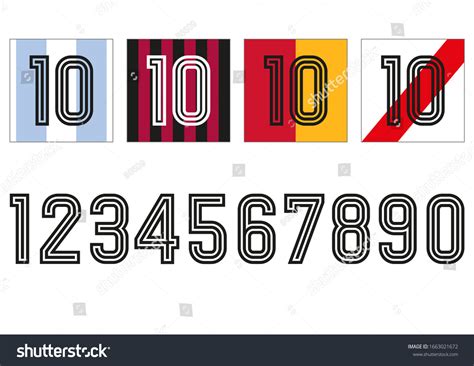
Awesome Football Number Fonts
Hey guys! Let’s dive into the awesome world of football numbers font ! If you’re a fan, a player, or just someone who loves the sport, you know how crucial those numbers are. They’re not just digits; they’re identifiers, symbols of pride, and a huge part of the game’s visual identity. Whether you’re designing a jersey, creating some fan art, or even just customizing your gear, picking the right font for your football numbers can make all the difference. It’s all about that bold, athletic look that screams ‘game day’! We’re talking about fonts that have that perfect blend of toughness and style, fonts that look great big and bold on the back of a jersey or smaller on a team logo. This isn’t just about readability; it’s about conveying the spirit and energy of football itself. Think about your favorite players – you instantly associate their number with them, right? That’s the power of a good font choice. It becomes part of their legacy! So, whether you’re a designer looking for inspiration or a football enthusiast wanting to add some flair to your projects, stick around. We’re going to explore some of the best football numbers font options out there that will have your designs scoring touchdowns. Get ready to find the perfect font to capture the thrill and excitement of the gridiron!
Why Font Choice Matters for Football Numbers
Alright, let’s get real for a second, guys. Why should you even care about the football numbers font you pick? Isn’t a number just a number? Absolutely not! In the world of football, the font you choose for those iconic numbers is super important. Think about it: these numbers are plastered all over jerseys, helmets, banners, and merchandise. They need to be instantly recognizable, even from a distance, and they need to convey a sense of power, speed, and athleticism. A poorly chosen font can make a jersey look weak, hard to read, or just plain boring. We’re talking about a font that needs to stand up to the intensity of the game, something that looks strong and impactful. It’s not just about aesthetics; it’s about branding and identity. Your team’s numbers are a key part of its visual identity. They’re how fans recognize their heroes on the field. Imagine your favorite player’s number in a flimsy, scripty font – it just doesn’t fit the vibe, does it? Football numbers font needs to be bold, often blocky, and convey that rugged, no-nonsense attitude that football is known for. A good font can elevate a simple jersey design into something truly memorable and professional. It adds a layer of seriousness and passion to your team’s presentation. Plus, in a sport where every second counts, legibility is key. Referees, coaches, fans, and even fellow players need to be able to identify numbers quickly and accurately. This is where fonts designed with sports in mind really shine. They often feature clear, distinct shapes for each numeral, minimizing confusion. So, when you’re choosing a football numbers font , you’re not just picking letters; you’re choosing a symbol that represents strength, unity, and the competitive spirit of the game. It’s a small detail that has a huge impact on the overall look and feel of anything related to football. Let’s make sure your numbers are always ready for the big game!
Classic and Timeless Football Fonts
When we talk about football numbers font , there are some styles that just never go out of fashion. These are the classics, the ones you see again and again because they just work. Think of those bold, blocky fonts that have been gracing football jerseys for decades. They’re the bedrock of sports typography, offering that perfect blend of strength and clarity. These fonts are designed to be seen, to stand out, and to project an image of power and determination. One of the most iconic styles is the classic athletic block font. These typically feature thick, straight lines with minimal embellishments. They are incredibly legible, making them ideal for numbers that need to be read quickly on a fast-paced field. Often, these fonts will have a slightly squared-off or rounded feel, giving them a friendly yet robust appearance. Another variation is the ‘varsity’ style font, which might have subtle serifs or a slightly more stylized appearance, often evoking a sense of tradition and collegiate pride. These fonts often have a bit more character, perhaps with slightly slanted strokes or unique shapes for certain numbers, but they maintain that core readability. Many of these classic football numbers font options are also designed with customization in mind, allowing for outlines, shadows, and other effects that further enhance their visual impact. They are versatile and can be adapted to a wide range of team colors and designs. When you see these fonts, you immediately think of football. They evoke memories of legendary games, championship wins, and the sheer grit of the sport. They are timeless because they embody the fundamental qualities of football: strength, tradition, and unwavering spirit. Whether you’re outfitting a professional team or a local youth league, these classic fonts provide a reliable and impactful choice that resonates with the essence of the game. They are the sturdy foundation upon which countless football visual identities have been built, and they continue to be a go-to for designers seeking that authentic, powerful look. They are the unsung heroes of jersey design, providing that essential visual punch that defines a team. So, if you’re aiming for that instantly recognizable, powerful football aesthetic, you can’t go wrong with these enduring football numbers font choices.
Modern and Aggressive Football Fonts
Now, let’s switch gears and talk about the football numbers font that brings the heat – the modern and aggressive styles! These fonts are all about making a statement, conveying speed, power, and a cutting-edge vibe. They’re perfect for teams that want to project a fierce, competitive image and aren’t afraid to stand out from the crowd. Think sharp angles, dynamic lines, and a general sense of motion. These fonts often break away from the traditional blocky look, incorporating more stylized elements that give them a unique personality. One of the key characteristics of modern football fonts is their emphasis on speed and aggression . You’ll often see sharp, pointed edges, slants that suggest forward momentum, and a generally more dynamic construction. These fonts aren’t shy; they’re designed to grab attention and communicate intensity. They might feature cut-ins, voids, or unique stencil-like elements that give them a more tactical or high-tech feel. These are the fonts you see on teams that are pushing the boundaries, looking to disrupt the status quo. They can range from sleek and futuristic to raw and edgy, depending on the specific design. For example, some modern fonts might have a very clean, almost minimalist approach but with sharp, aggressive curves or unexpected breaks in the lines. Others might lean into a more distressed or rugged look, implying a hard-fought battle on the field. The key is that they evoke a sense of energy and power that goes beyond traditional designs. Football numbers font in this category are excellent for conveying a team’s aggressive playstyle or its forward-thinking approach to the game. They can make a uniform look absolutely electrifying and memorable. When choosing these fonts, consider how they will look on the jersey – the sharp lines and dynamic shapes can create incredible visual interest, especially when paired with contrasting colors or outlines. They are a fantastic way to give your team a distinct and powerful identity that screams ‘we mean business.’ So, if you’re looking to make a bold impression and capture the fierce spirit of modern football, these aggressive football numbers font options are definitely worth exploring. They bring an undeniable edge to any design!
Choosing the Right Font for Your Needs
Alright, you’ve seen the classics and the modern beasts, but how do you actually pick the right football numbers font for your specific project? This is where the rubber meets the road, guys! It’s not just about picking what looks cool; it’s about finding a font that fits your team, your style, and your practical needs. First off, consider your team’s identity . Are you a traditional powerhouse with a long history, or are you a brand-new squad looking to make a splash? A classic, bold font might be perfect for a storied program, while a more aggressive, modern font could suit a team aiming for a fresh, dynamic image. Think about the vibe you want to project: stability and tradition, or innovation and aggression? Next up, legibility is non-negotiable . Remember, these numbers need to be seen clearly from the stands, on TV, and by the players themselves. Avoid fonts that are too thin, too stylized, or have elements that could easily be confused with other numbers. Test the font at different sizes to ensure it remains readable. This is especially true for football numbers font , which are often viewed from a distance. Think about the application . Are you printing on jerseys, screen-printing, embroidering, or creating digital graphics? Some fonts work better with certain production methods. For instance, very intricate or thin fonts might not hold up well to embroidery or screen printing, whereas bold, simple fonts are generally more versatile. Also, consider how the font will interact with other design elements, like team logos, stripes, or player names. Does it complement them, or does it clash? Don’t forget customization options . Many football numbers font families come with variations like outlines, shadows, and different weights, which can add depth and visual interest to your design. These options can help your numbers pop and make your uniforms truly unique. Finally, get feedback! Show your potential font choices to teammates, coaches, or fellow designers. Sometimes an outside perspective can highlight issues you might have missed. The goal is to find a football numbers font that not only looks awesome but also serves its purpose effectively, enhancing your team’s presence and making a lasting impression. So, take your time, do your research, and choose wisely to ensure your numbers are always game-day ready!
Where to Find Great Football Fonts
So, you’re pumped and ready to find that perfect football numbers font , but where do you actually go to snag these awesome typefaces? Don’t worry, guys, there are tons of great resources out there, both free and paid, that can help you score big on your font hunt. For starters, many professional sports leagues and apparel manufacturers release their own custom fonts or have a selection of officially licensed fonts available. While these might be more on the premium side, they often offer the authentic look you’re after. If you’re looking for free options, there are some fantastic websites that host a huge variety of fonts. Sites like Google Fonts offer a surprisingly robust selection of athletic and bold fonts that can work wonderfully for sports numbering. While not exclusively ‘football fonts,’ you can find many highly legible and impactful options. Other popular platforms for free fonts include Dafont and FontSquirrel . These sites have extensive libraries where you can search by keyword (try terms like ‘athletic,’ ‘sports,’ ‘block,’ ‘stencil,’ or ‘team’) and often filter by license type to ensure you can use them for your intended purpose, whether it’s personal or commercial. Remember to always check the license for any free font to make sure you’re using it legally! When you’re ready to invest a bit more for top-notch quality and unique designs, premium font foundries are the way to go. Websites like MyFonts , Fontspring , and Creative Market offer thousands of high-quality, professionally designed fonts specifically for sports. You’ll find specialized football numbers font collections here that are designed with jerseys and athletic branding in mind. These premium fonts often come with extensive character sets, multiple weights, and superior design quality, making them a worthwhile investment for serious projects. Many graphic designers and sports branding agencies also share their custom font creations or curated lists of favorites. Keeping an eye on design blogs, Behance, and Dribbble can lead you to hidden gems. Don’t underestimate the power of a simple search on these platforms! Ultimately, the best place to find your football numbers font depends on your budget and your specific needs. Whether you’re hunting for a freebie or ready to splurge on a professional typeface, there are plenty of options to ensure your team’s numbers look absolutely killer. Happy hunting!
Conclusion: Make Your Numbers Count!
So there you have it, guys! We’ve journeyed through the dynamic world of football numbers font , exploring everything from the timeless classics that evoke tradition and strength to the modern, aggressive styles that scream speed and power. Picking the right font is more than just a stylistic choice; it’s about capturing the essence of the game, representing your team’s identity, and ensuring your numbers are seen and recognized. Remember, a great football numbers font enhances legibility, boosts team spirit, and makes a statement on and off the field. Whether you’re designing a new uniform, creating fan gear, or working on a football-themed graphic, the font you choose plays a huge role in the overall impact. Don’t settle for generic; strive for something that reflects the passion and intensity of football. Use those classic fonts for that sense of history and reliability, or opt for the bold, sharp designs to convey a fierce, cutting-edge attitude. Always prioritize clarity and ensure your chosen font looks fantastic in all its applications. The right football numbers font can transform a simple number into an iconic symbol. So go out there, explore the resources we mentioned, experiment with different styles, and find that perfect typeface that makes your numbers count. Make your team unforgettable!